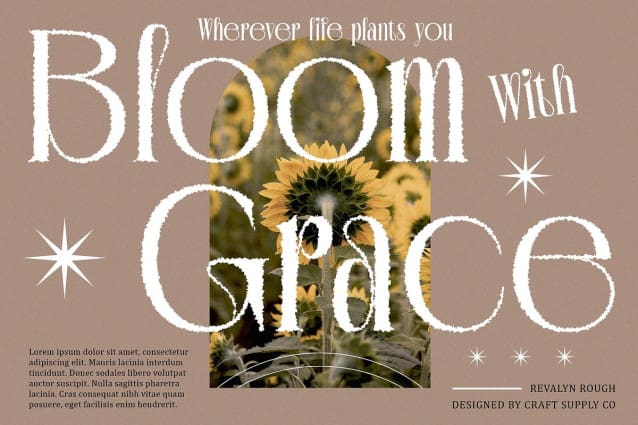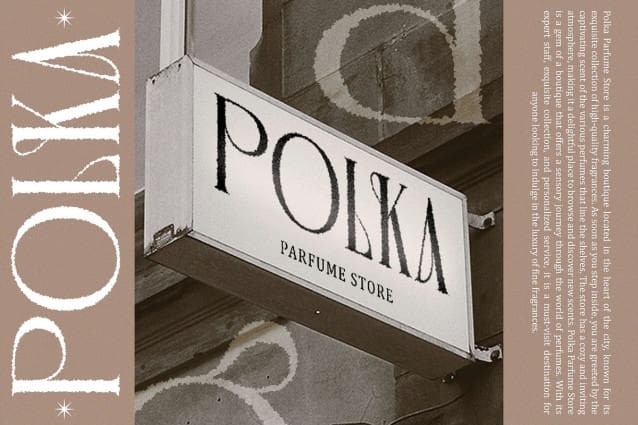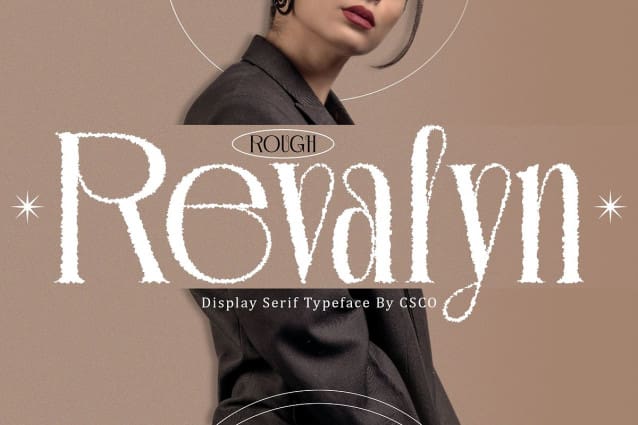
Revalyn Rough Font
Revalyn Rough Font is a modern serif font inspired by the elegance of Art Nouveau. Its unique design blends the sophistication of this artistic movement with a rough, edgy vibe, making it ideal for displays that demand a touch of vintage charm.
Ideal for Captivating Displays Designed to make an impact, Revalyn Rough is perfect for headlines, banners, and other display purposes. Its Art Nouveau-inspired design ensures that your message stands out and remains memorable.
Versatile and Stylish Despite its vintage inspiration, Revalyn Rough is versatile and stylish. Its serif font style suits a variety of projects, from branding to editorial design, where a font with character and charm is essential for making a statement.
Perfect for Adding a Vintage Touch Revalyn Rough is ideal for projects that require a font with a vintage touch. Whether you’re designing a poster, logo, or website, this font will undoubtedly add a unique and memorable element to your designs.